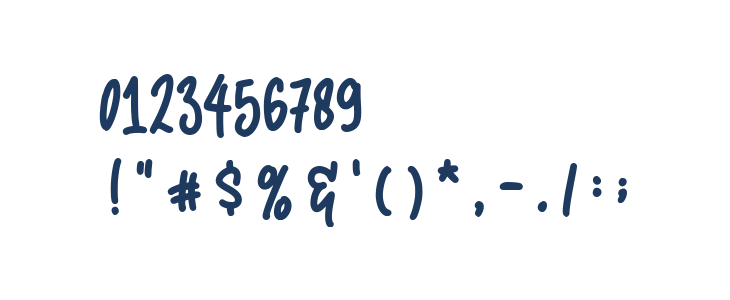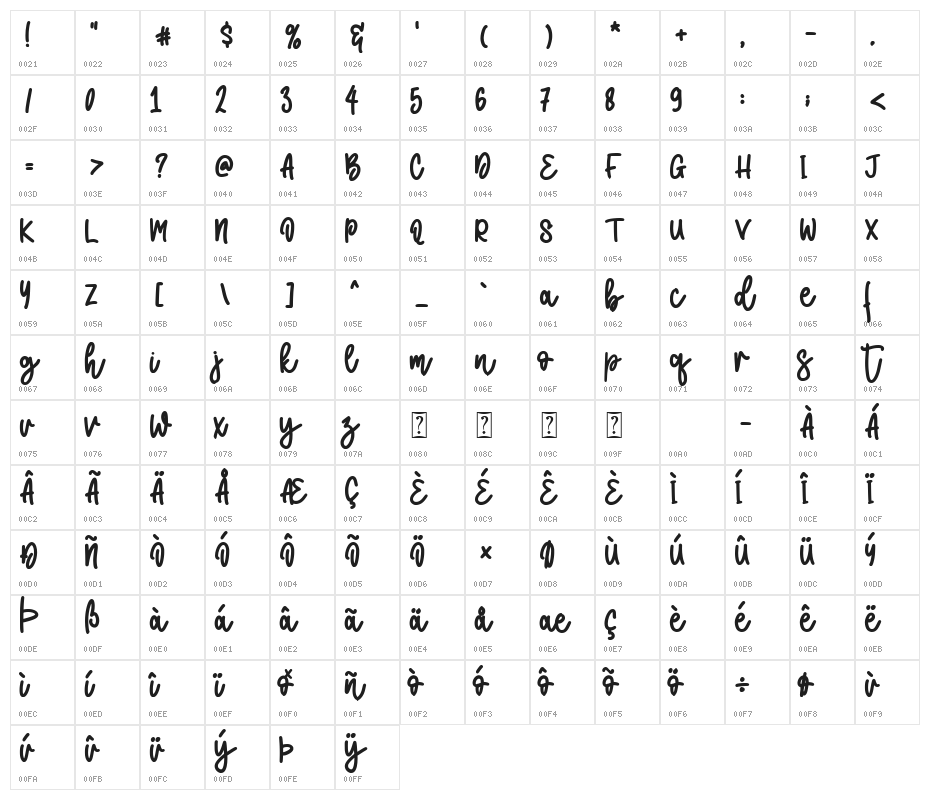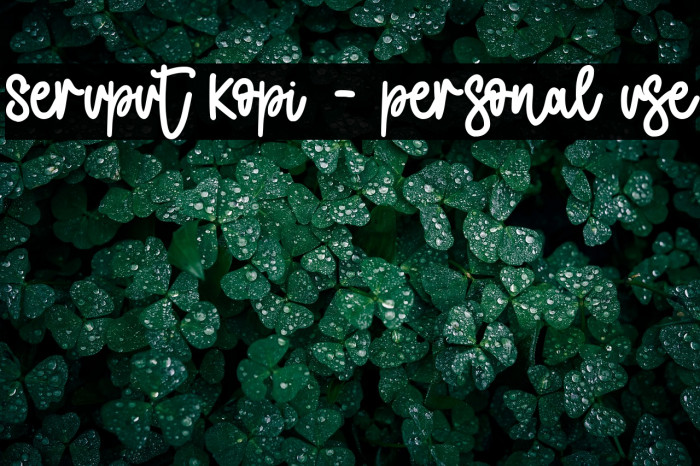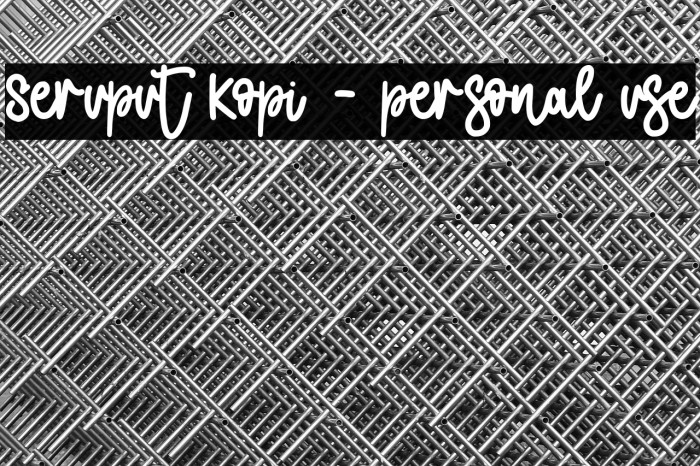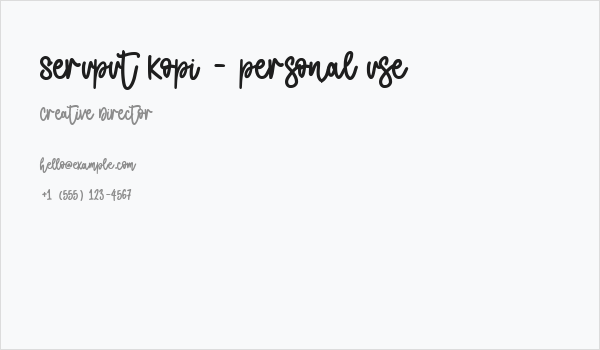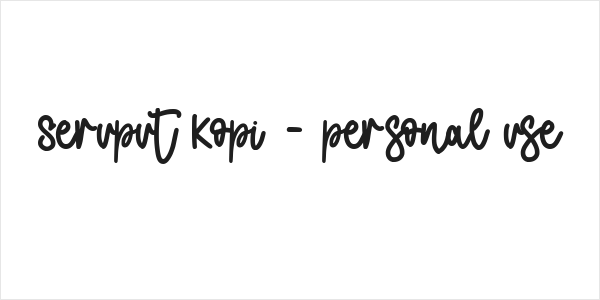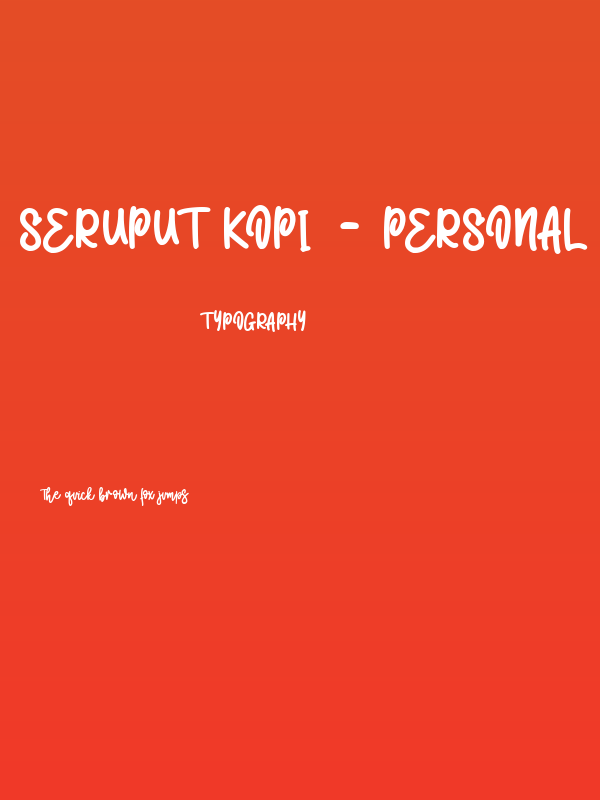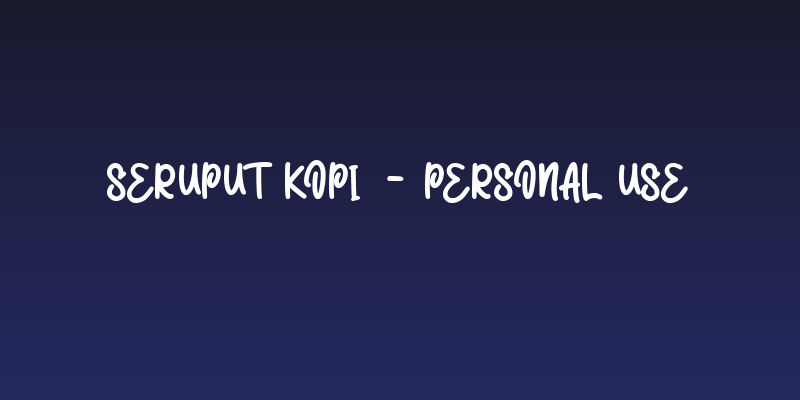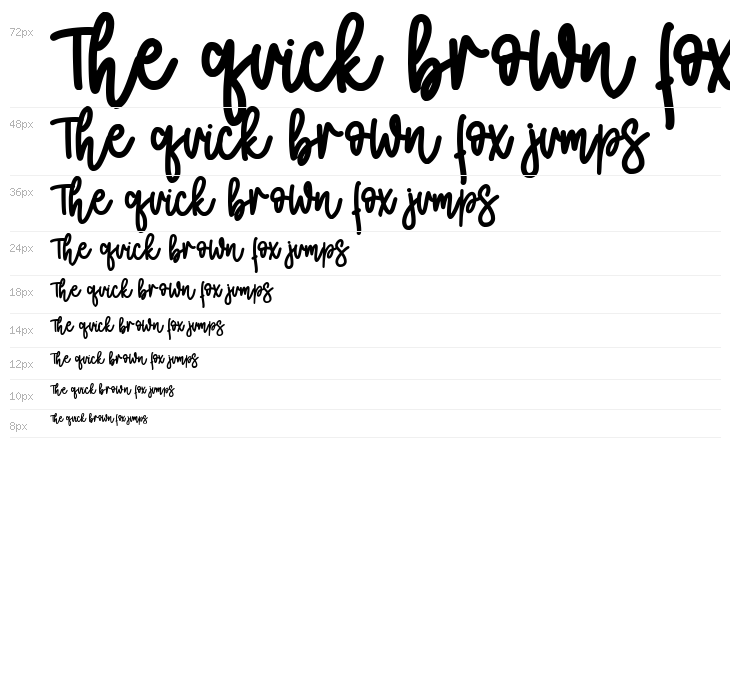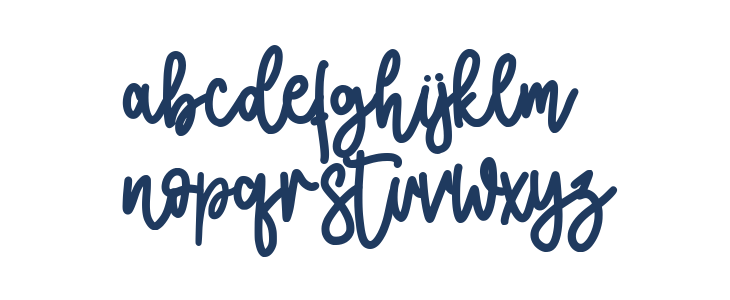
Seruput Kopi - personal use Font
Seruput Kopi - personal use Description
This font features a bold, handwritten style with a playful and casual appearance. The letters are rounded and slightly slanted, giving a dynamic and energetic feel. Uppercase and lowercase letters maintain a consistent flow, while numbers and special characters complement the overall aesthetic. The strokes are thick and uniform, contributing to a strong visual impact. This font is ideal for projects that require a personal touch or a friendly, approachable vibe.
| Proposed Projects | Ideal for greeting cards, social media graphics, branding, and posters. |